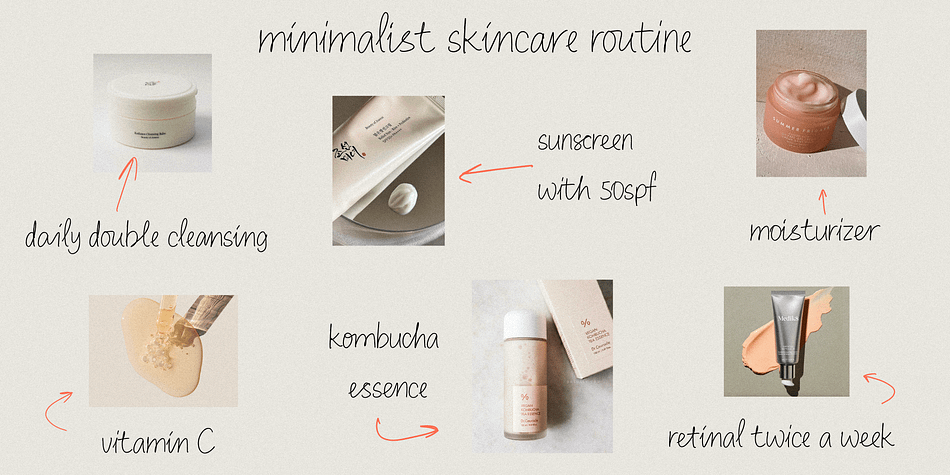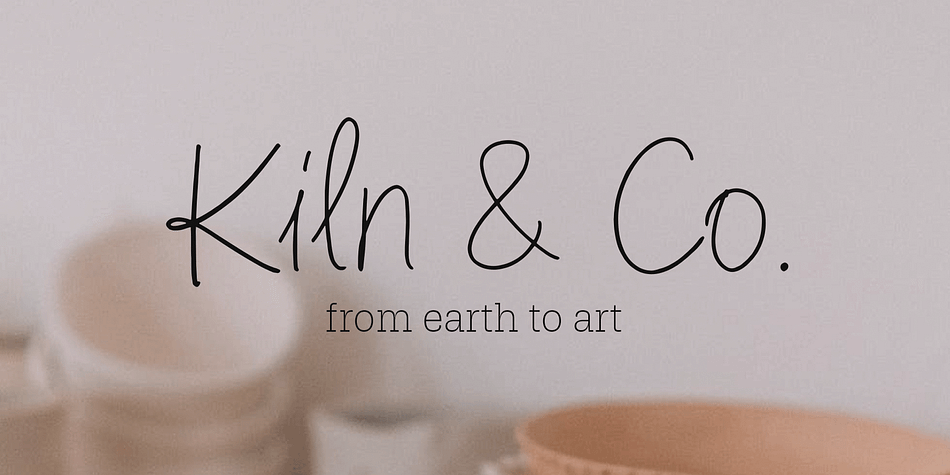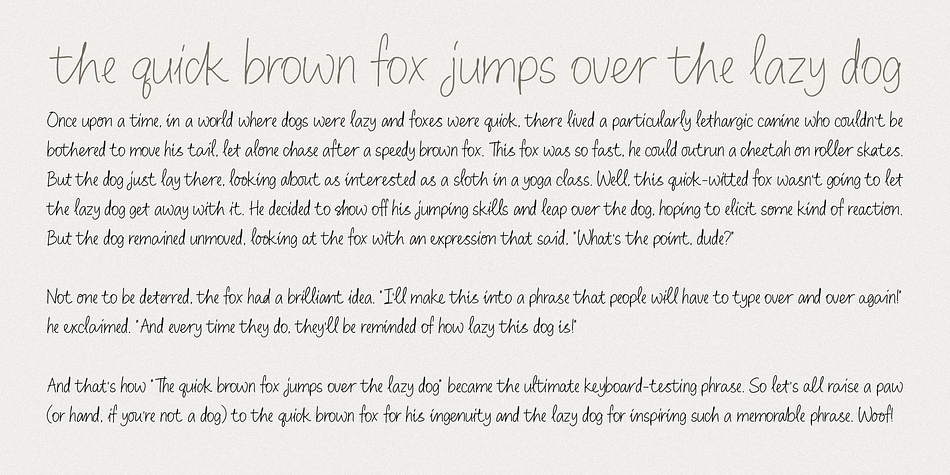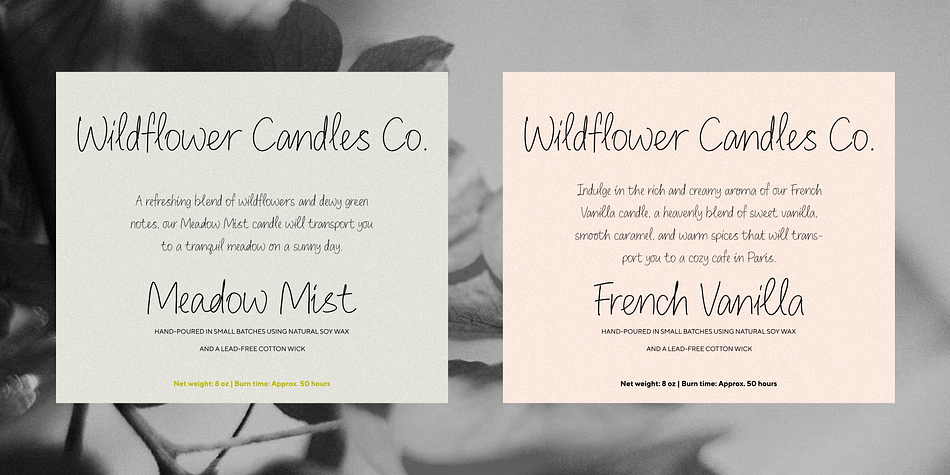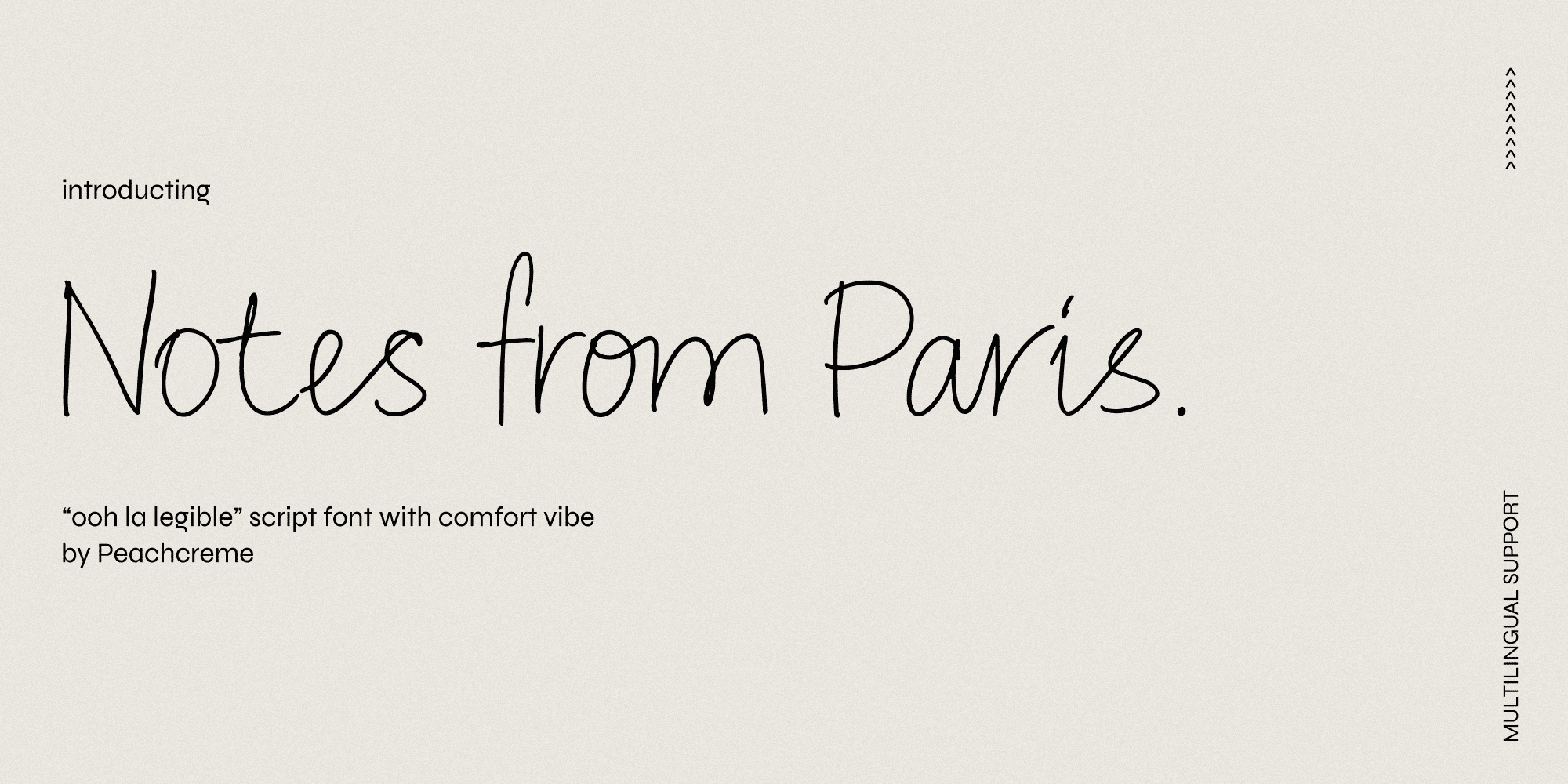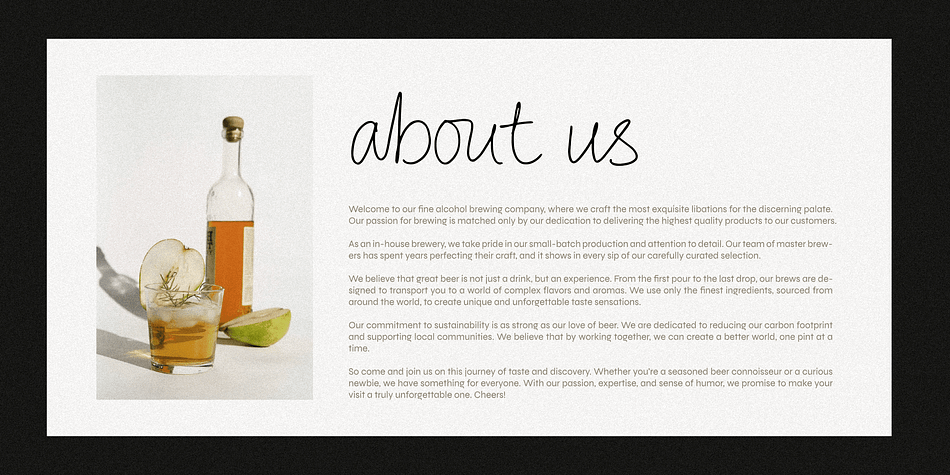
Notes from Paris
Notes from Paris is a hand drawn and script font family published by PeachCréme.
“Notes from Paris” will make your letters look très chic while still maintaining its functionality with easy-to-read letterforms. Furthermore, the comforting vibe of this font brings a touch of relaxation to your typography. The words flow with ease and grace, like a gentle breeze on a summer day in the city of love.
So, whether you’re crafting a logo design or wedding invite, “Notes from Paris” is a font that you must have for a chic and legible typographic journey. With 59 Opentype ligatures, this font blurs the line between script and handwriting, allowing for a seamless transition between letters and creating a truly genuine sensation.